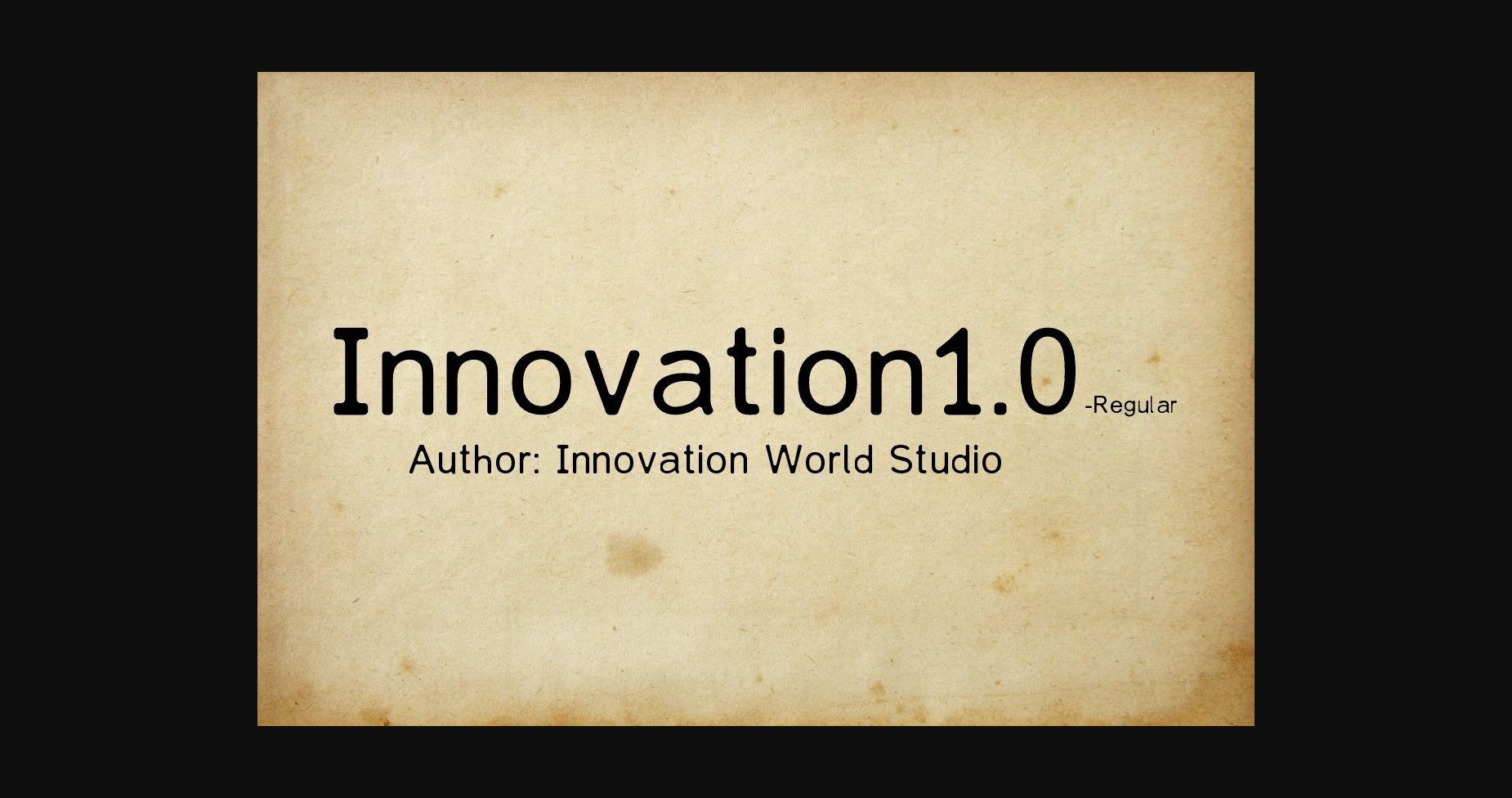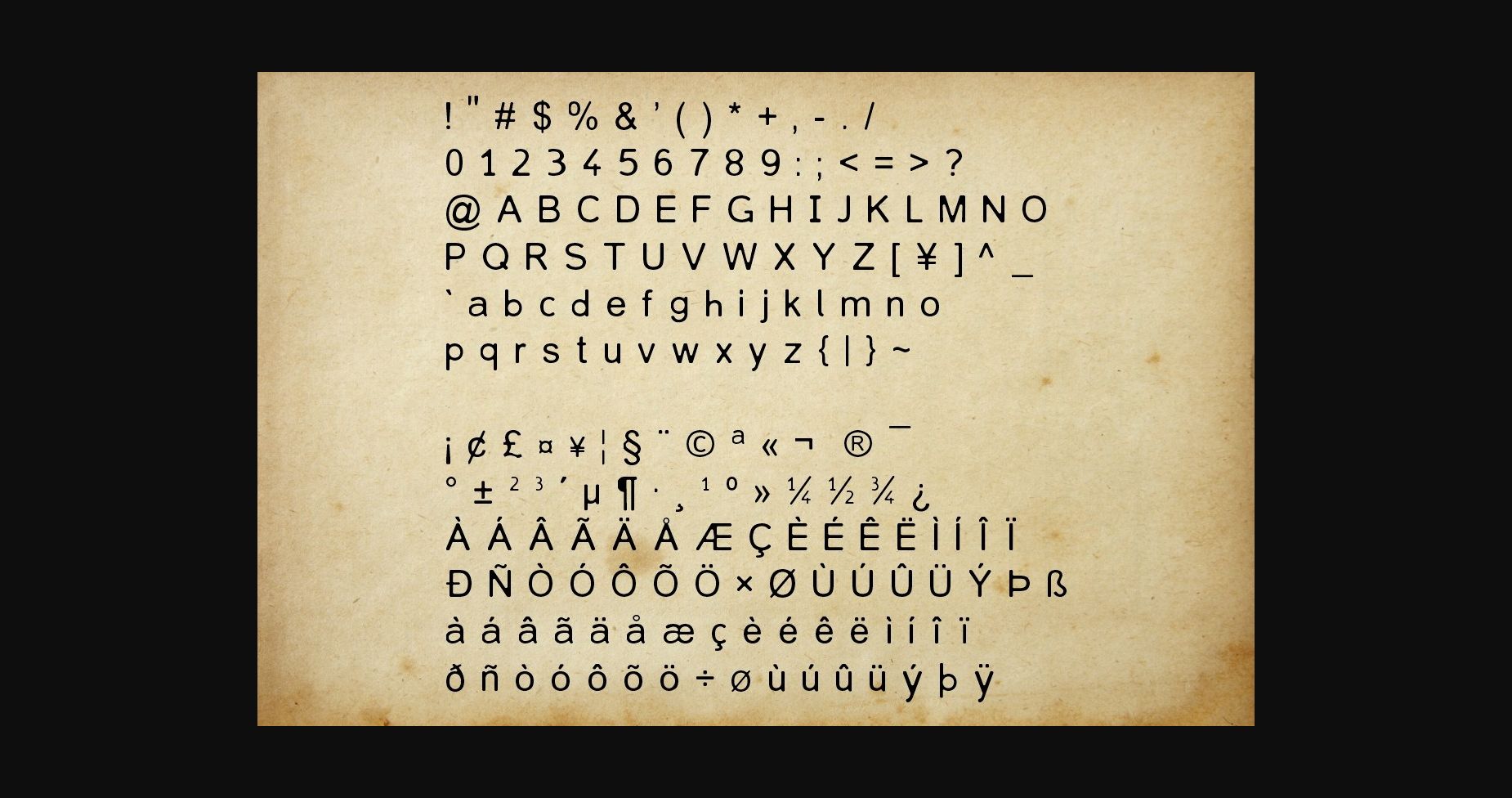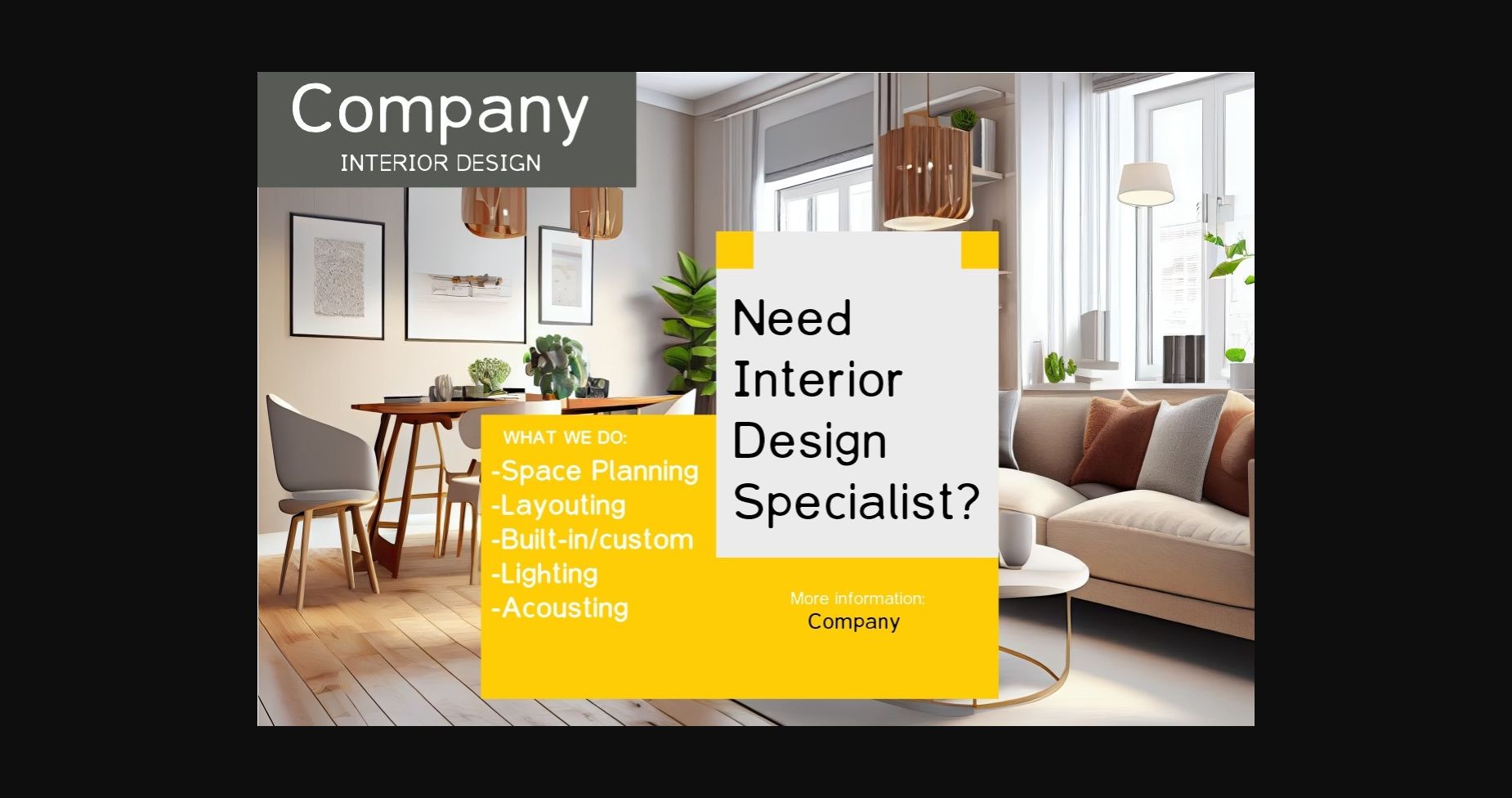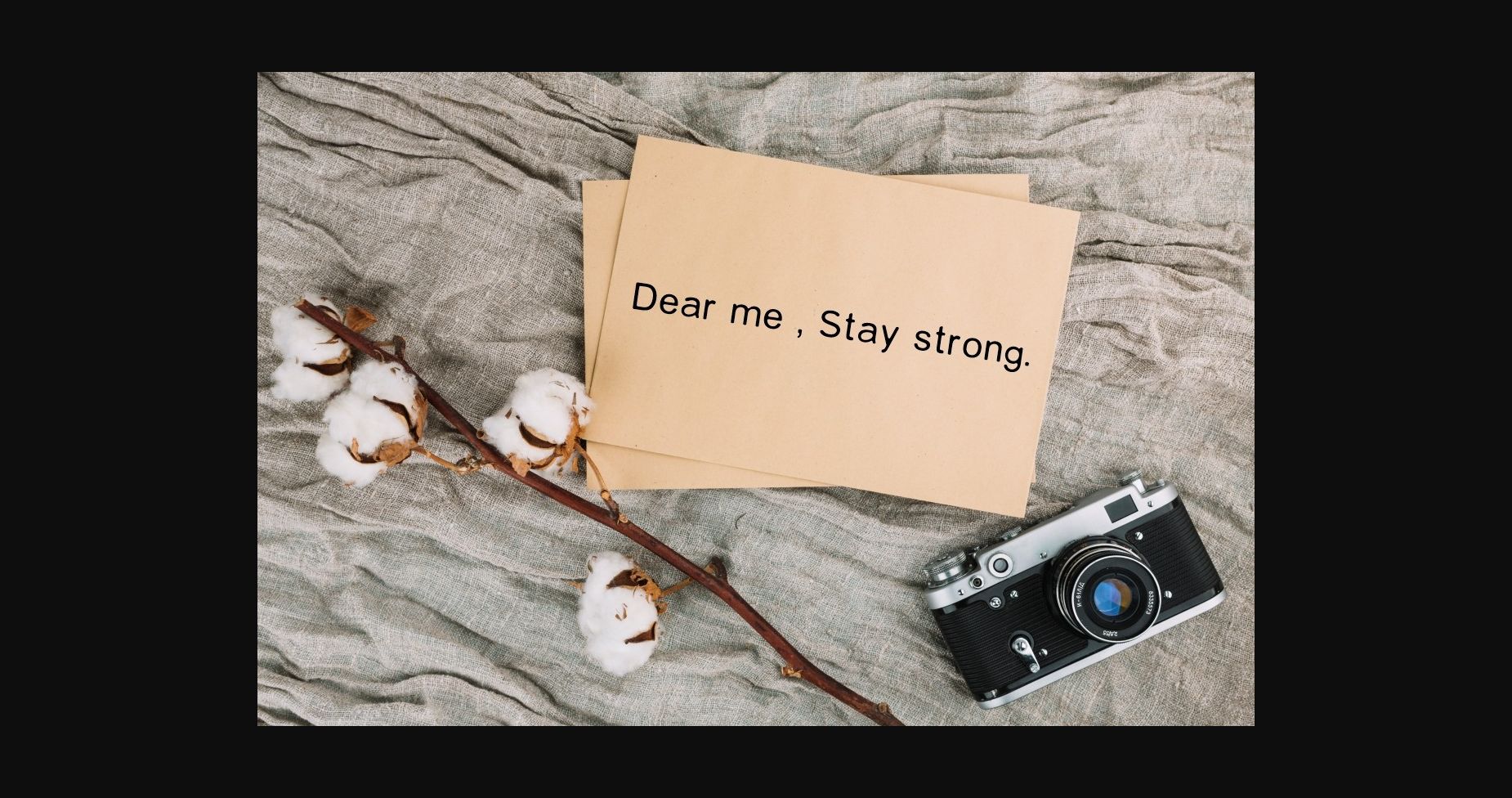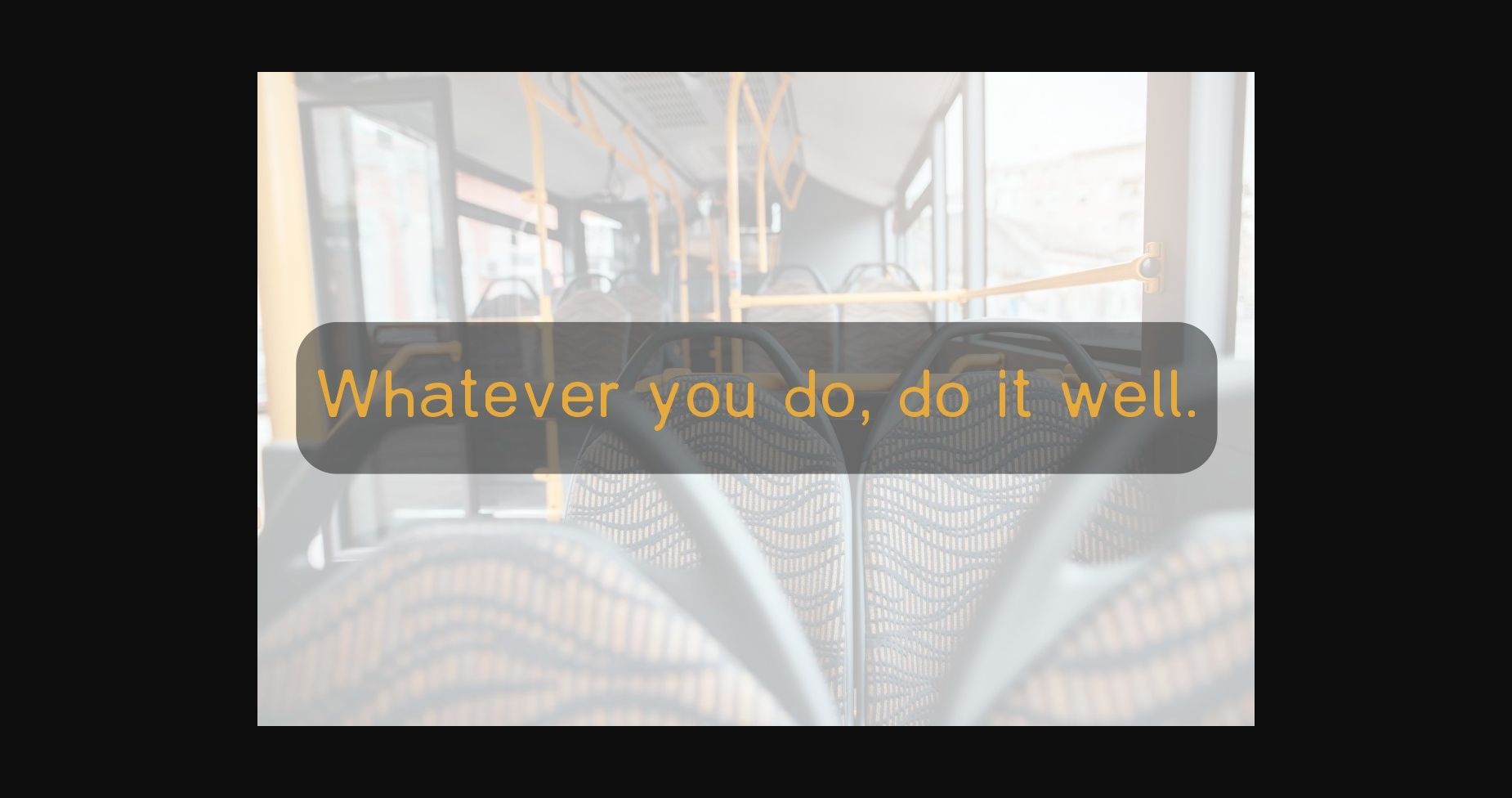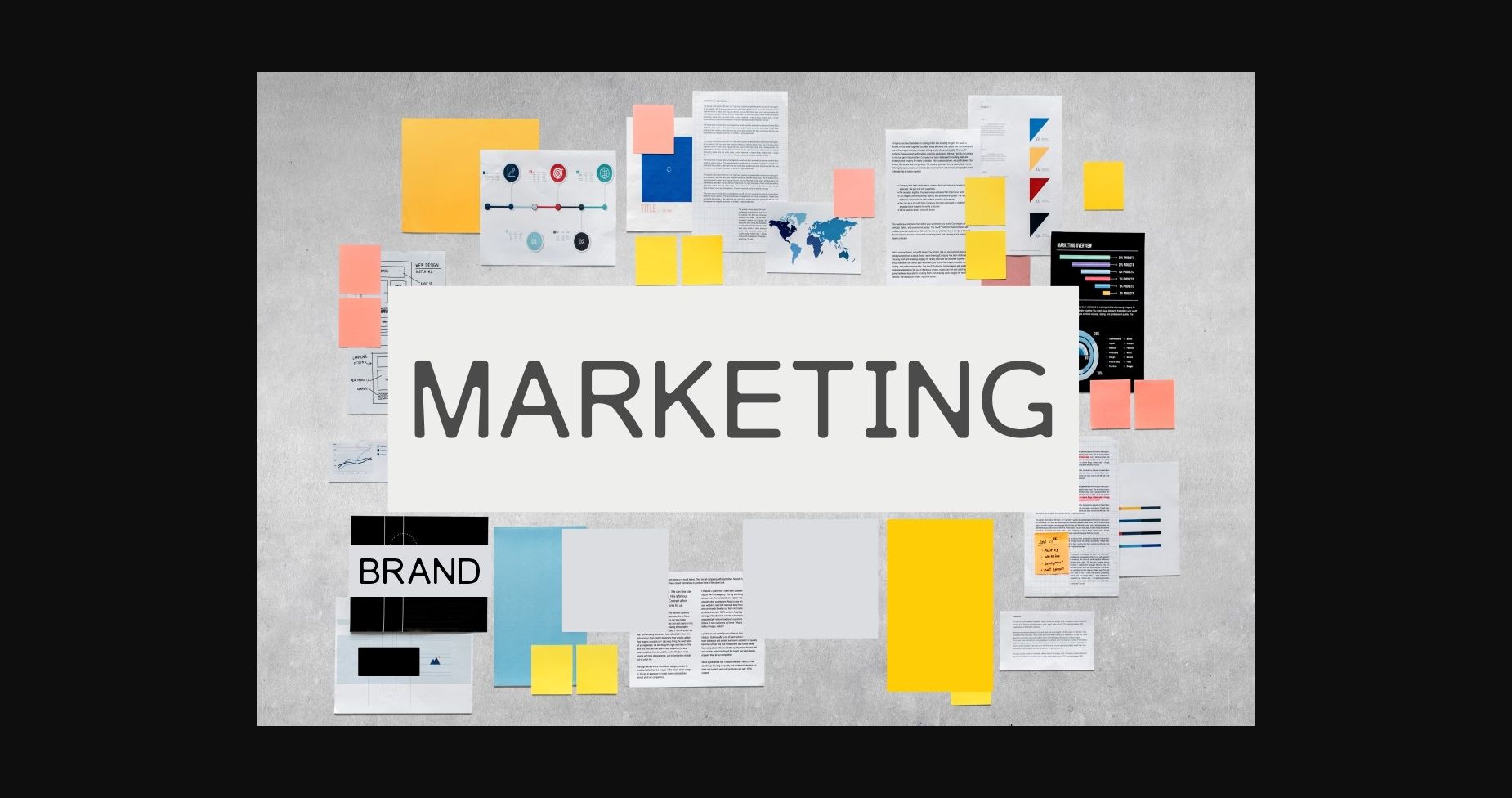
Innovation1.0 Font
About Innovation1.0 Font
Innovation1.0 is modern sans serif font .You can add it to a wide range of projects on different topics
(Advertising campaigns, Marketing, Interior Design, Article titles, Logo, Business, Photography, Magazine..)